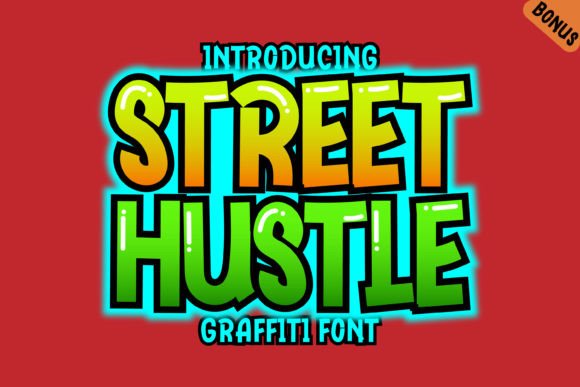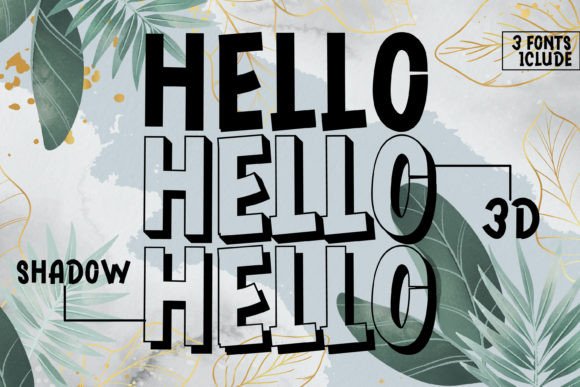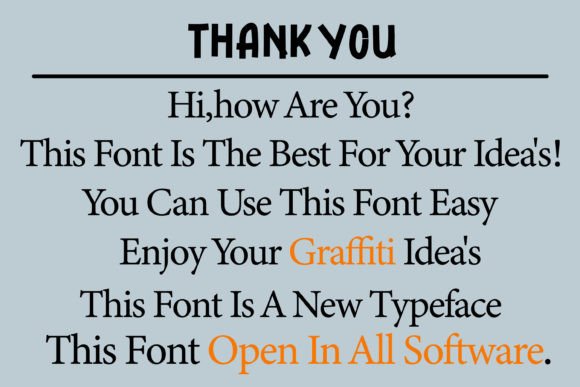
Street Hustle Font Font
Explore the possibilities with Street Hustle Font Font, a font that offers both beauty and functionality. Street Hustle is an eye-catching display font that features bold lines and a unique, attention-grabbing graffiti style. Ideal for headlines, logos, and advertising, it will make your text stand out and captivate your audience.